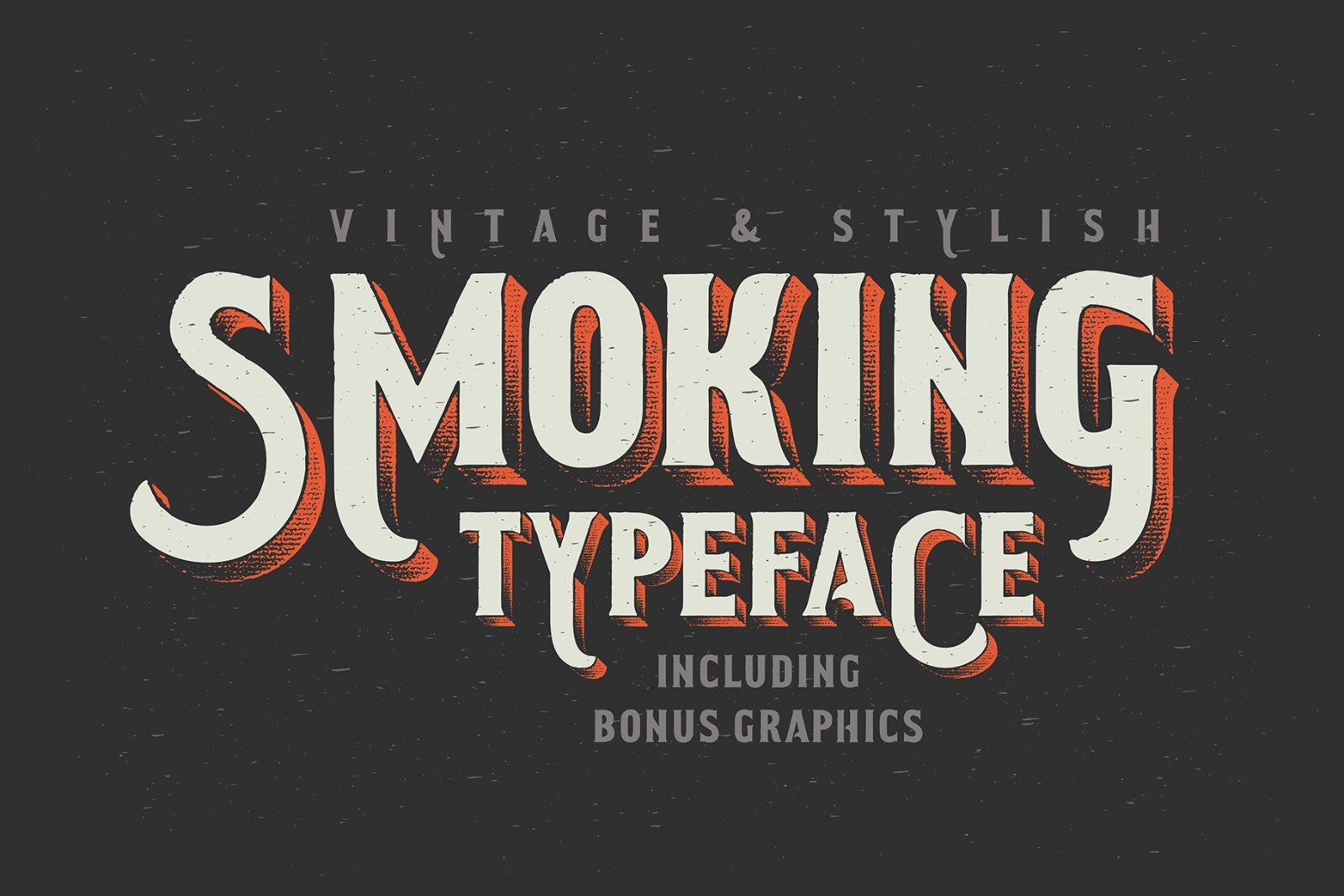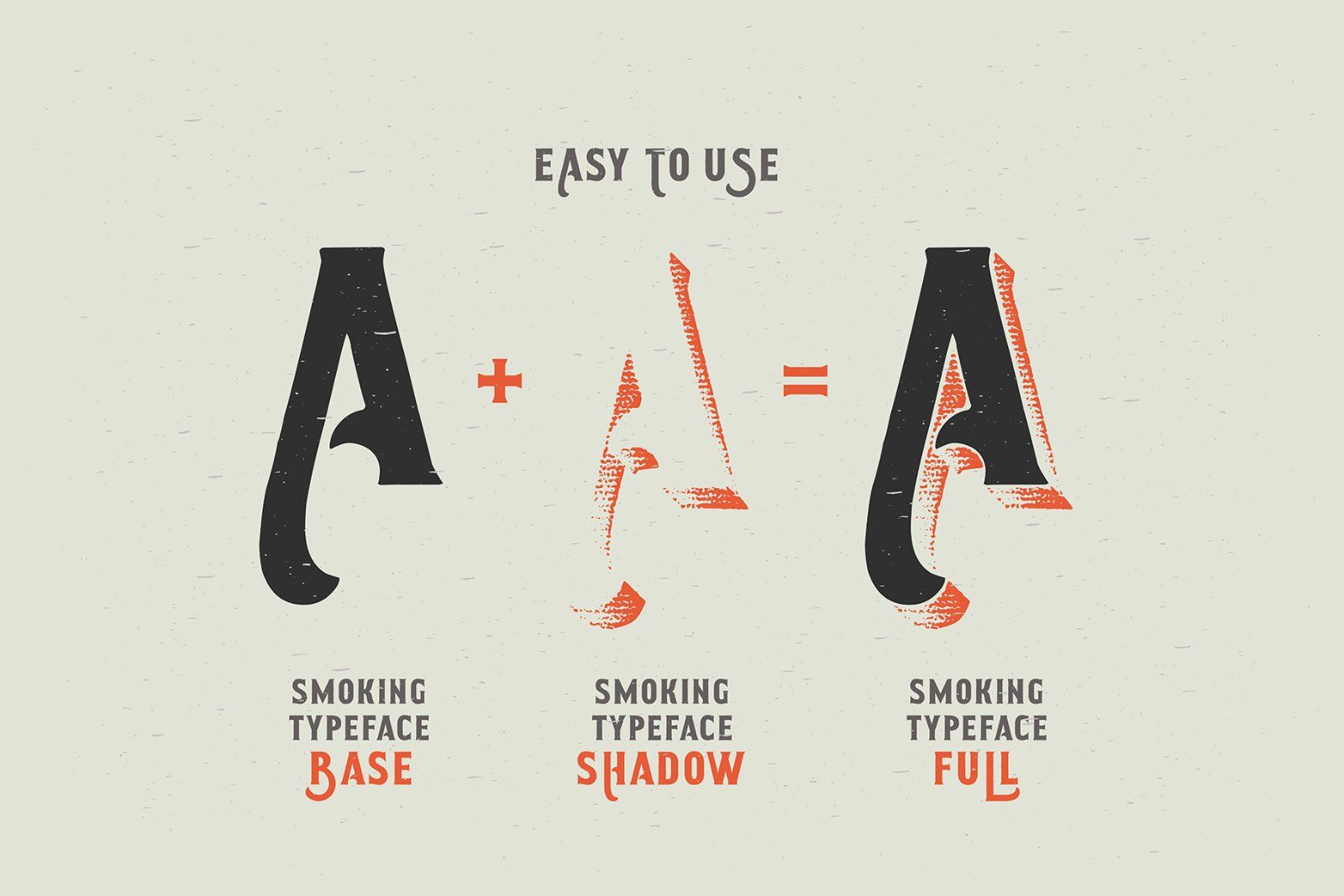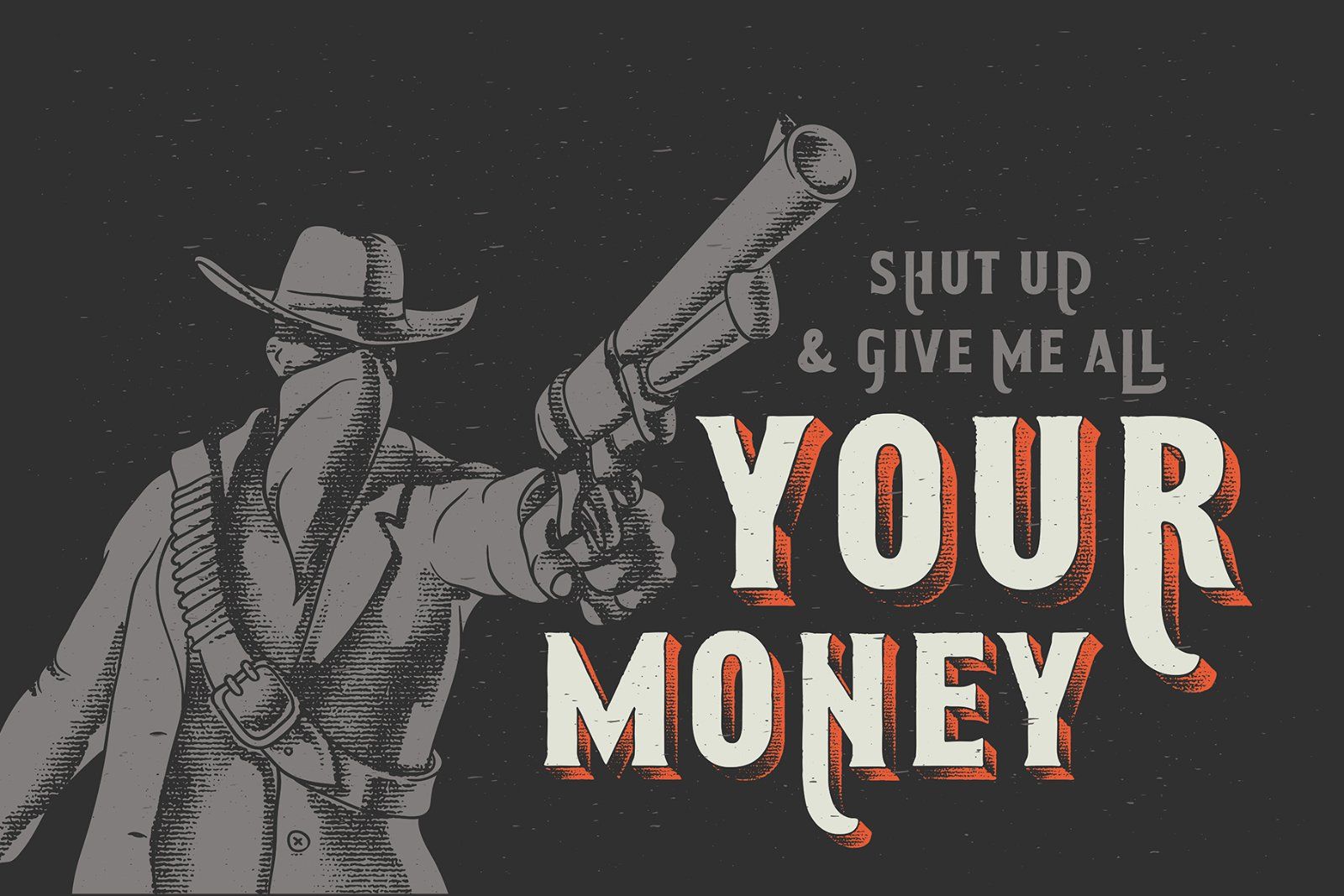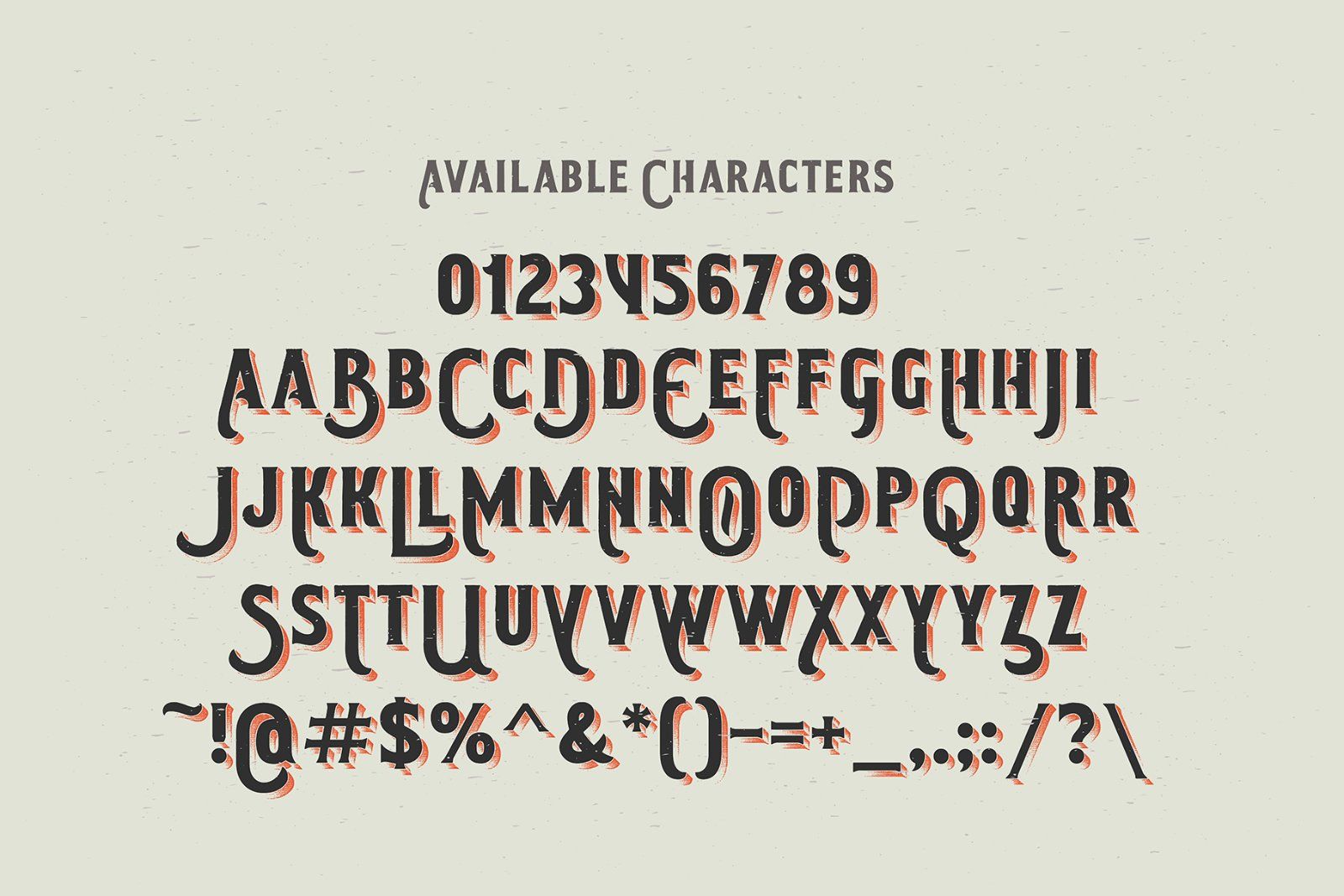
Hello! Introducing another one vintage western font. I've made a separated font files for base font and a textured volume effect, so you can easily recolor your text in few clicks.
• Poster with dangerous man (third screenshot)